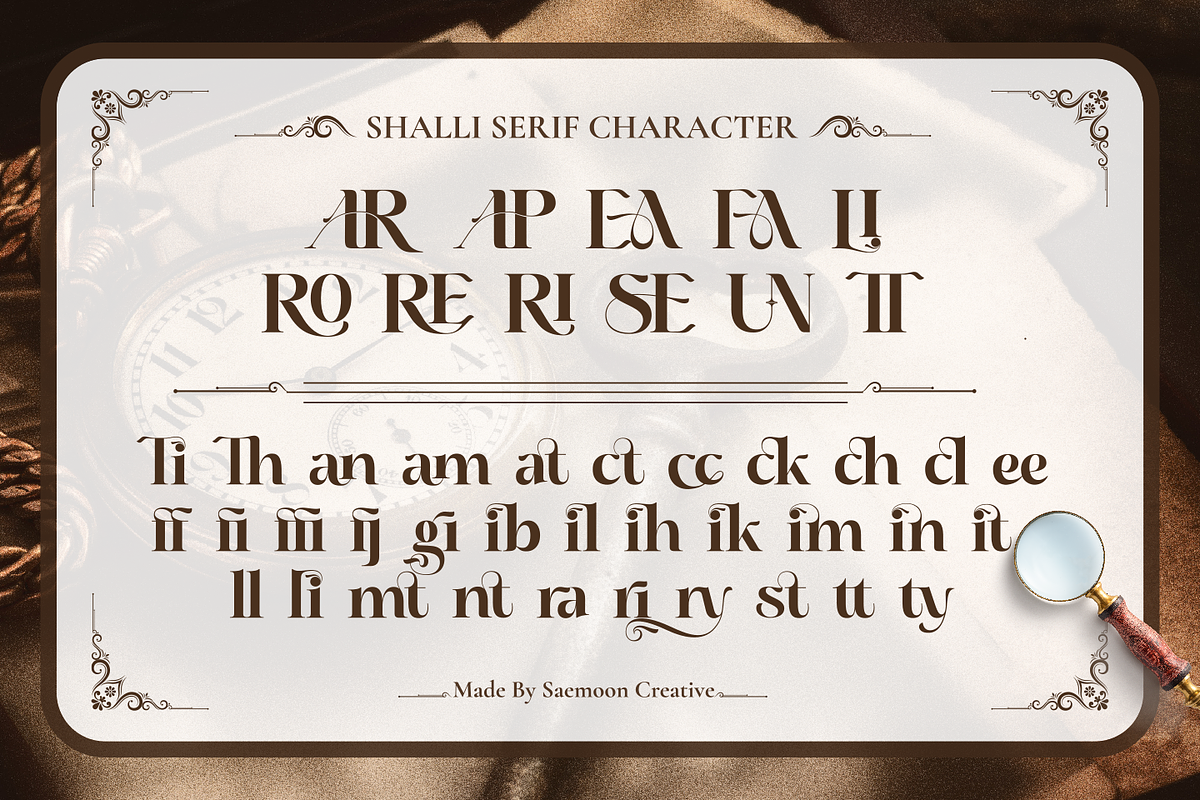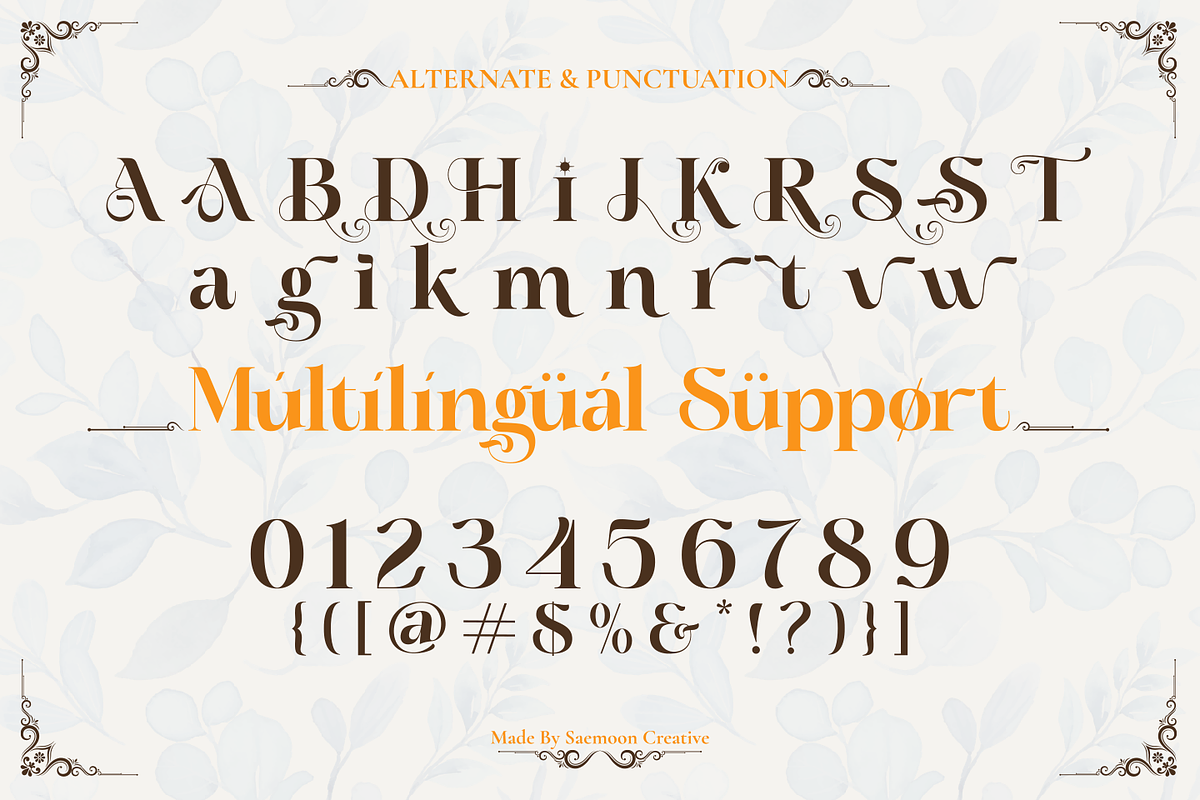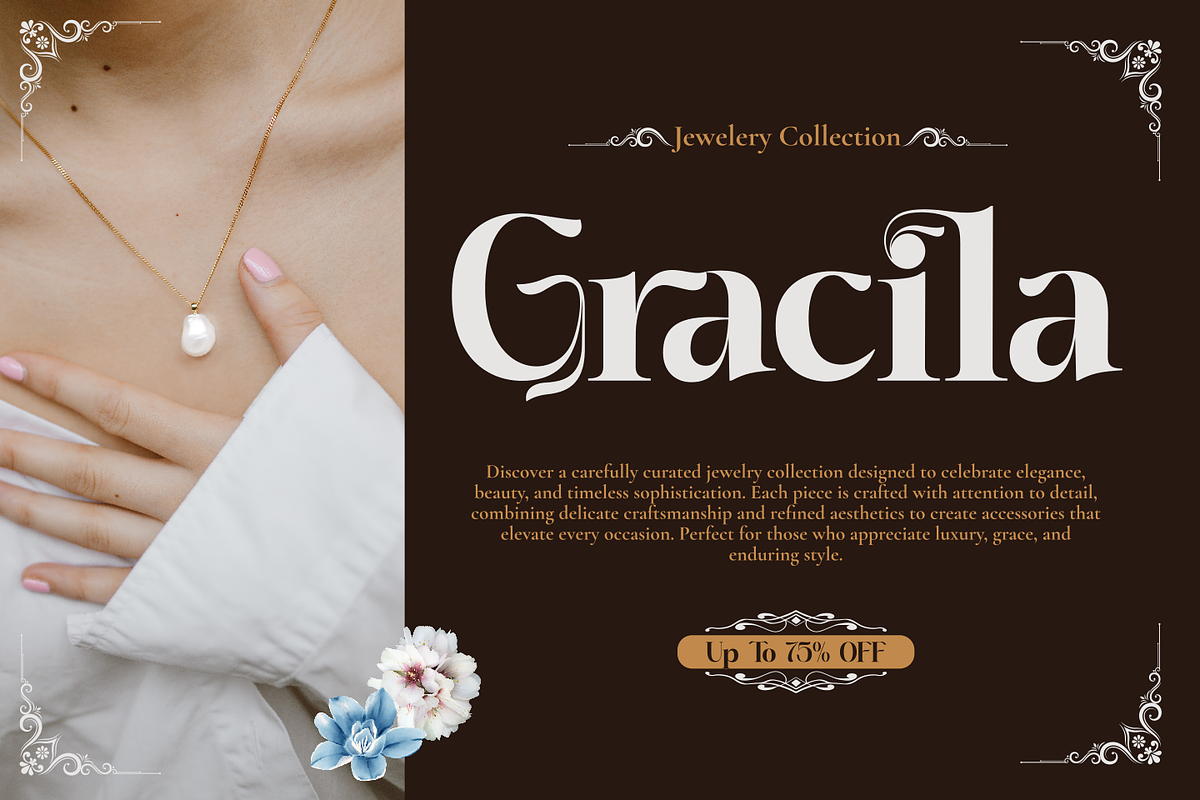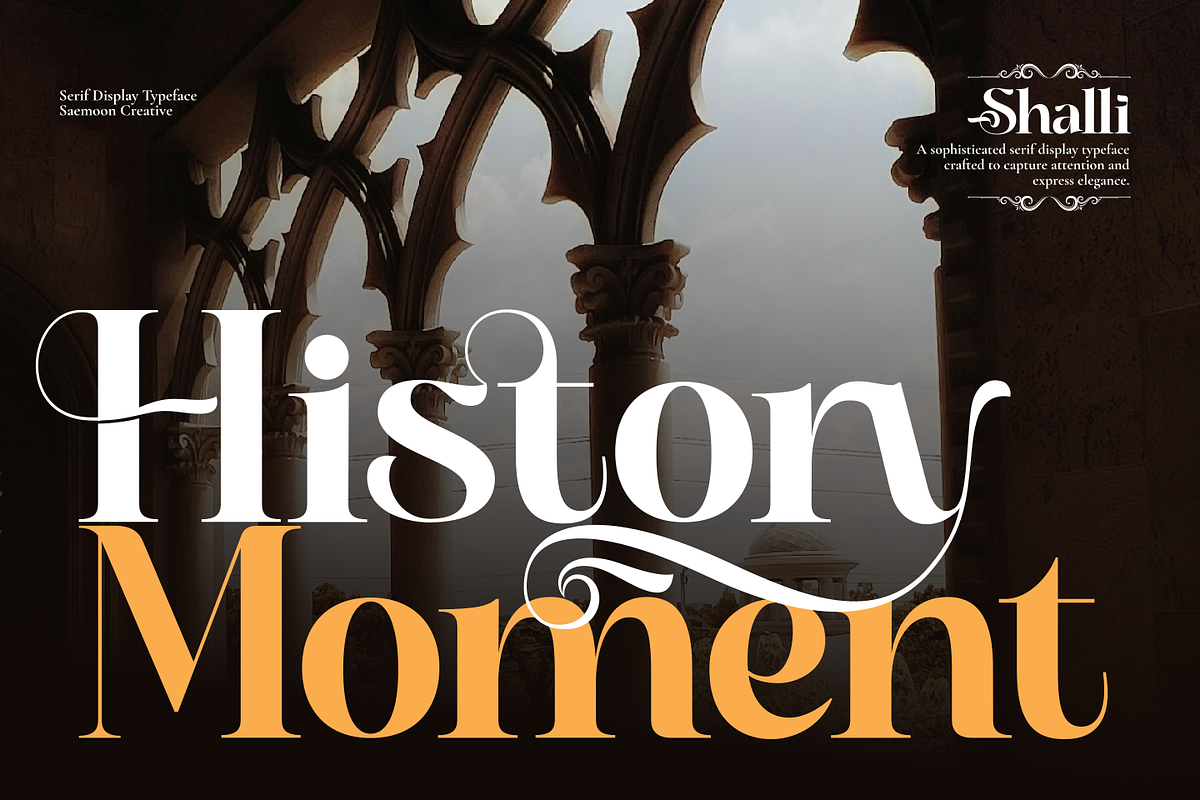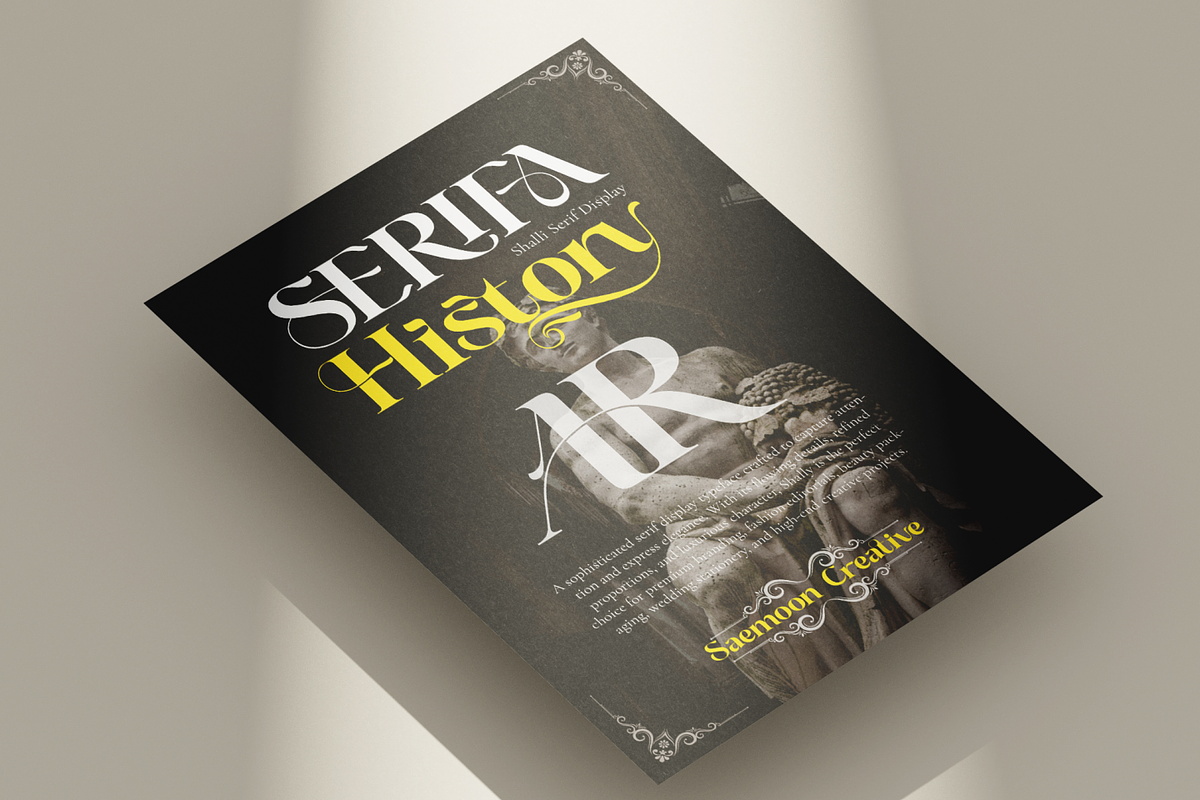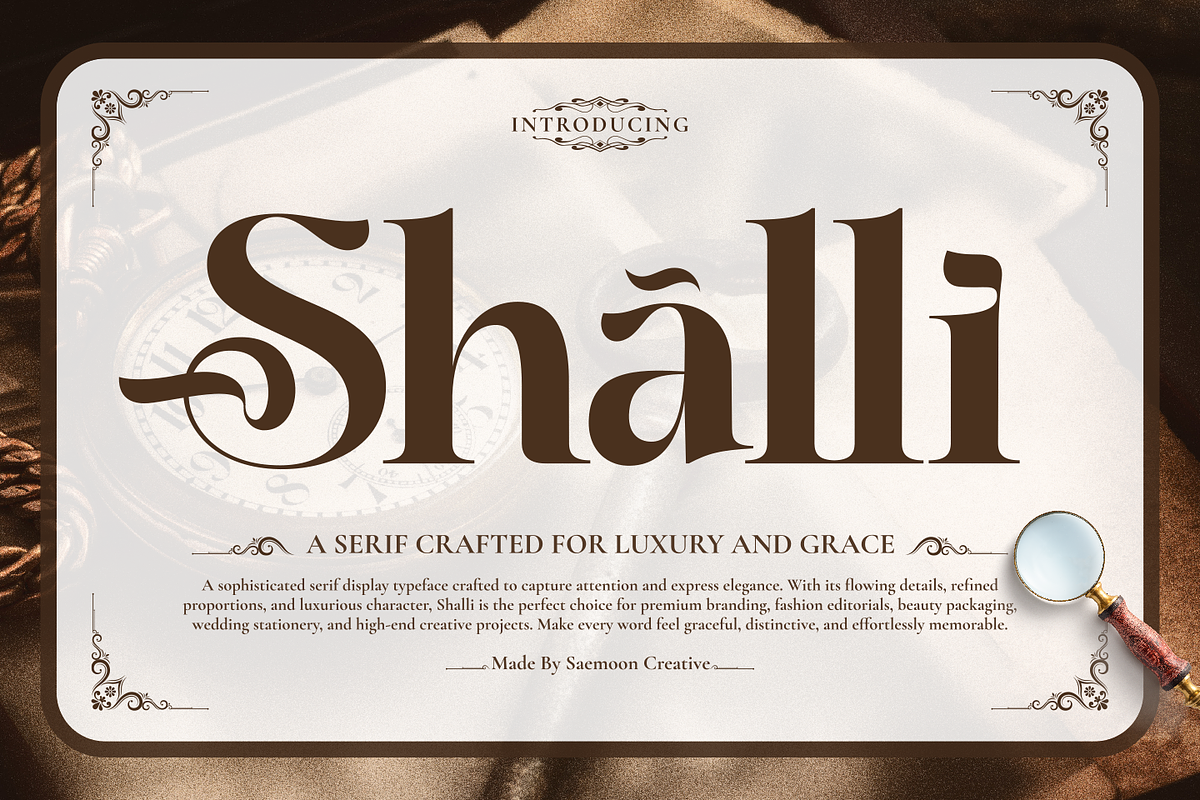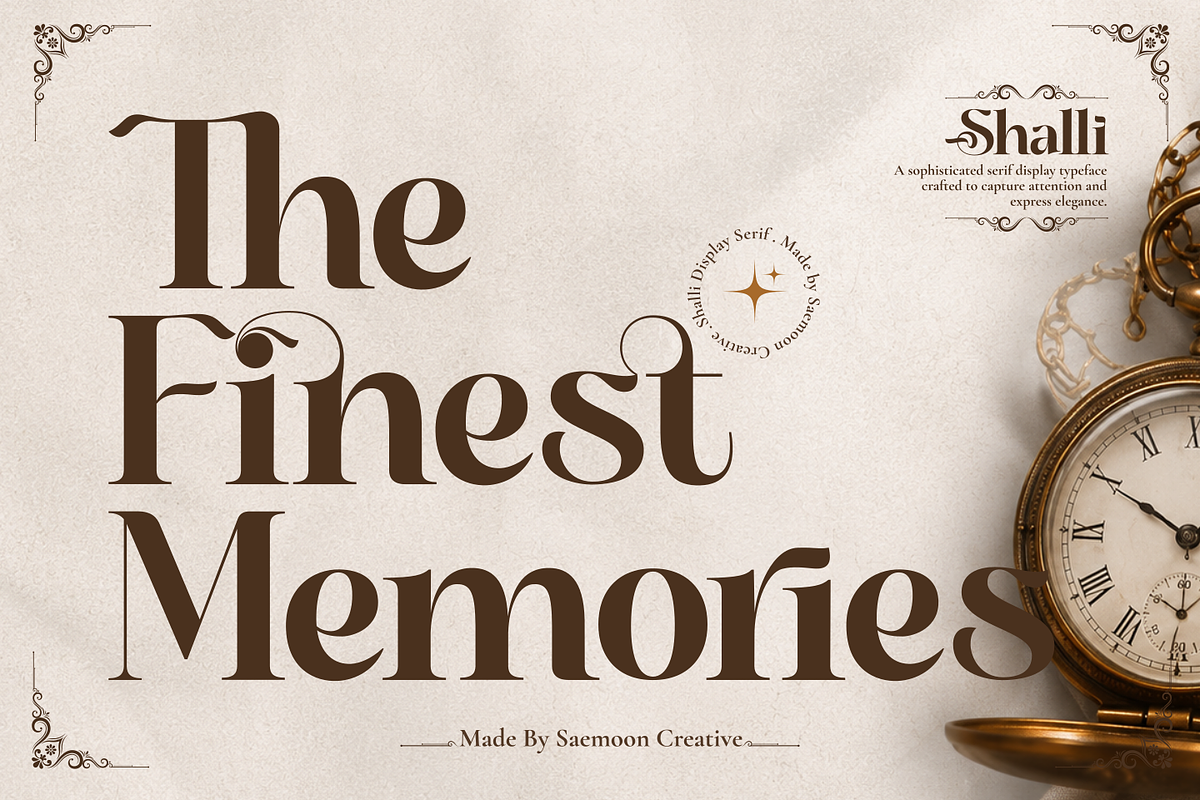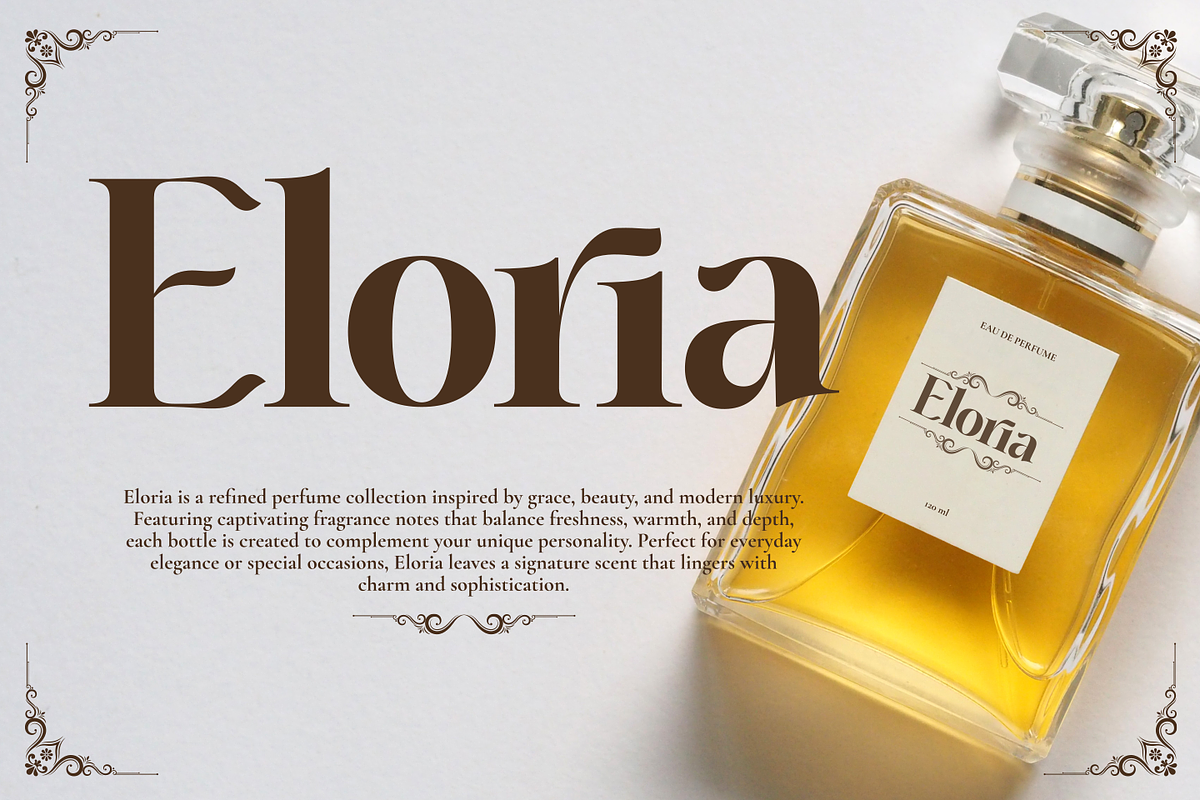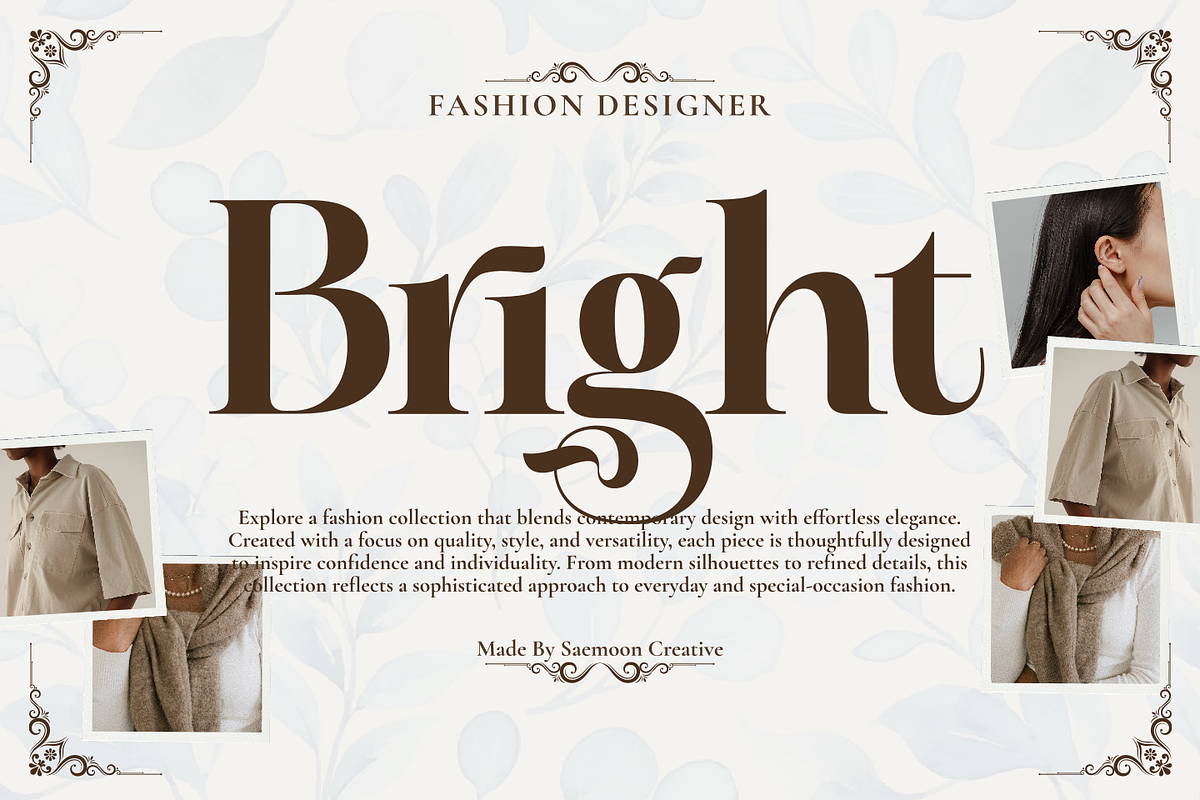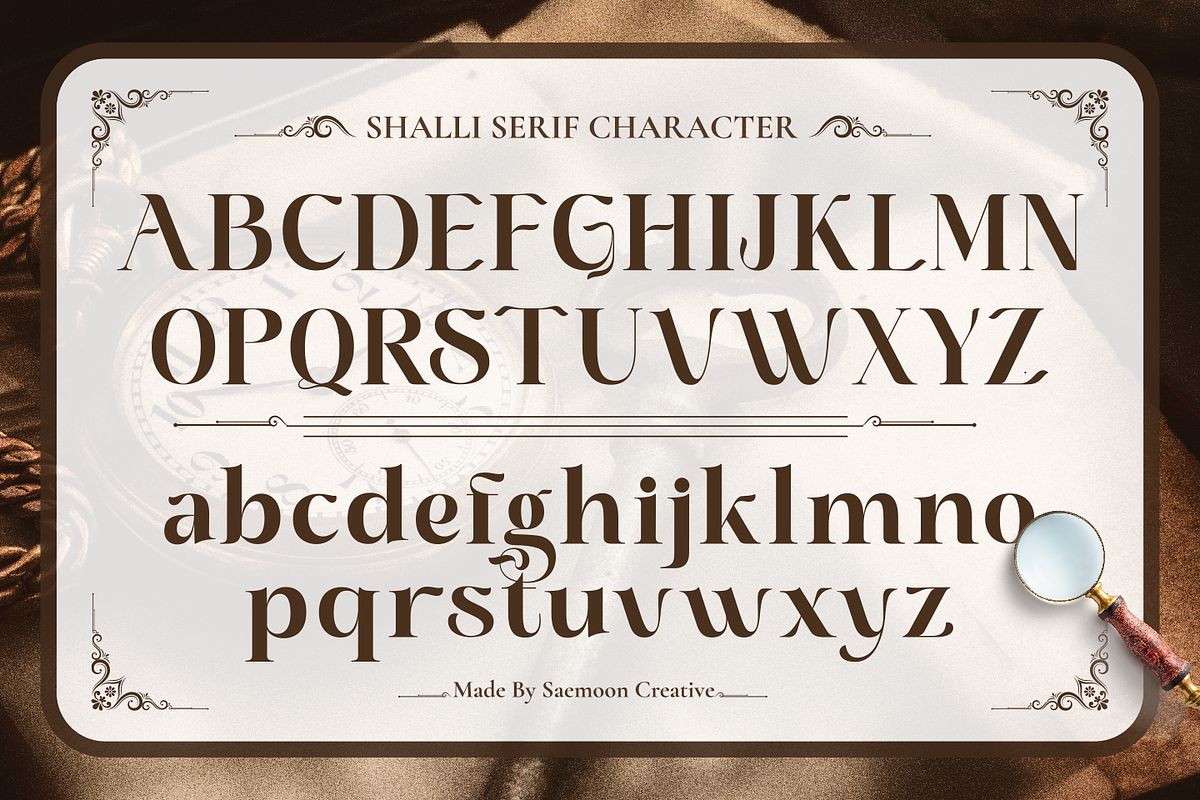
Shalli
Shalli is a luxury serif display font that combines timeless elegance with modern sophistication. Designed with refined high-contrast strokes, graceful curves, and beautiful decorative details, this typeface is perfect for creating premium branding and eye-catching typography.
Its elegant character makes Shalli ideal for fashion brands, cosmetic packaging, luxury logos, wedding invitations, editorial layouts, social media graphics, and high-end product designs. Whether you're working on a classic or contemporary project, Shalli brings a graceful and memorable touch to every design.